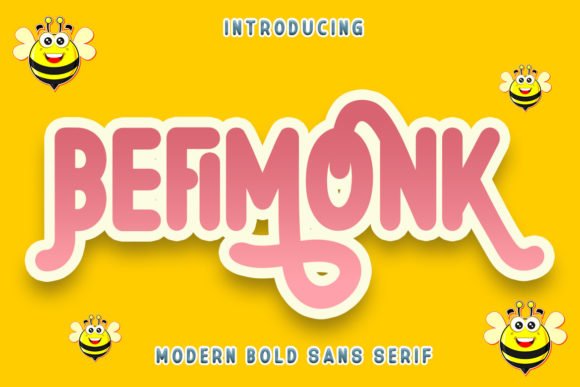
You know that feeling when you’re working on a project and you’re stuck on the perfect font to match your vision? The one that will elevate your design, make it stand out, and leave a lasting impression? I’ve been there too. It’s a moment of pure creative bliss, and it’s exactly what the Befimonk Font is designed to deliver.
Befimonk is a modern and cool sans serif font that’s perfect for any project, from logos to posters, and everything in between. With its sleek and sophisticated design, it’s sure to add a touch of class to your creations. But what really sets Befimonk apart is its PUA encoding, which means you can access all of the glyphs and swashes with ease, taking your designs to the next level.
Befimonk Font Key Features
- Unique Characteristics: The Befimonk Font features a unique blend of modern and medieval elements, with intricate details and flourishes.
Befimonk Font Review
I recently had the chance to work with the Befimonk font, and I must say it’s been a mixed bag for me. ✨ One thing that really stands out is the unique aesthetic it brings to a design. The combination of modern and vintage elements is quite refreshing and can add a nice touch to certain projects. The font is also highly customizable, which is a huge plus.
On the other hand, I’ve encountered a few issues that might be a concern for some designers. ⚠️ Firstly, the font can be quite glitchy when used in large blocks of text. I’ve noticed that it can cause some readability issues, especially in smaller font sizes. Additionally, the font’s compatibility with certain software and operating systems can be a bit spotty.
Key Points:
- Unique aesthetic blend of modern and vintage elements
- Glitchy performance in large blocks of text
- Compatibility issues with certain software and operating systems
Overall, I’d say the Befimonk font is a solid choice for designers looking to add some flair to their projects. However, it’s essential to be aware of its limitations and potential drawbacks. With some careful planning and testing, this font can be a great addition to your design arsenal.
Use Befimonk for headings and titles to add a touch of elegance and sophistication to your designs.
Use Befimonk for typography-heavy designs, such as posters, flyers, or business cards.
Use Befimonk for presentations, reports, or documents that require a touch of professionalism.
The Befimonk font